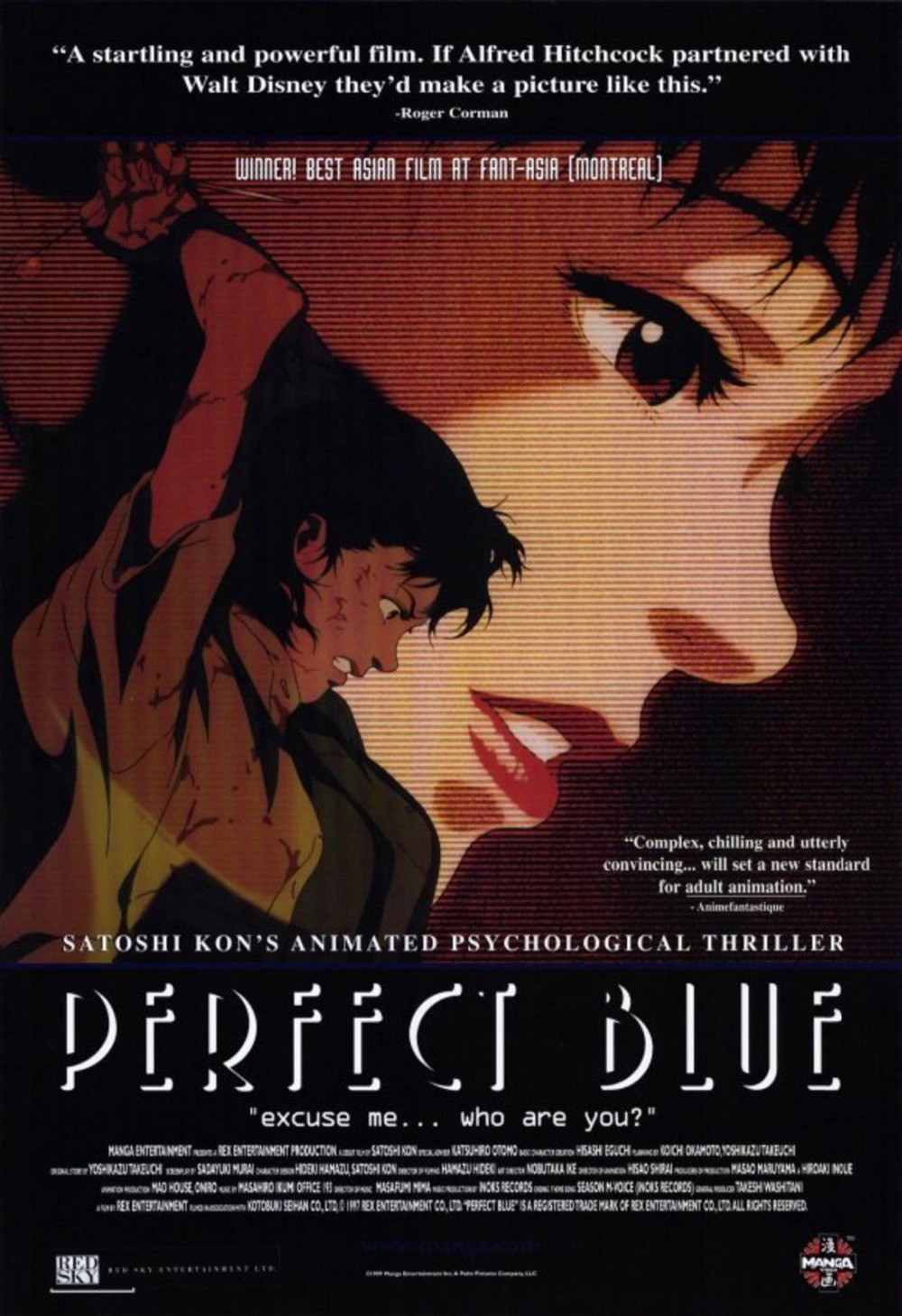
Perfect Blue Font
AnimationPerfect Blue is a 1997 Japanese animated psychological thriller about a retired pop singer cum actress who starts to experience strange events and delusions as she becomes increasingly paranoid about her personal safety.
The Perfect Blue title uses an Art Deco sans serif font Plaza by Alan Meeks. The box art uses Trajan by Carol Twombly for the title.